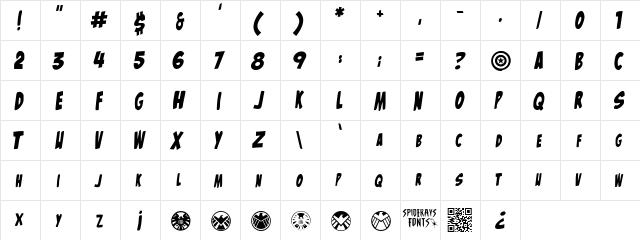
The Mighty Avengers Regular Font Preview
The Mighty Avengers Regular
Design Context for The Mighty Avengers Typeface
The Mighty Avengers is a composed and adaptable typeface that performs quietly and consistently across a wide range of design contexts.